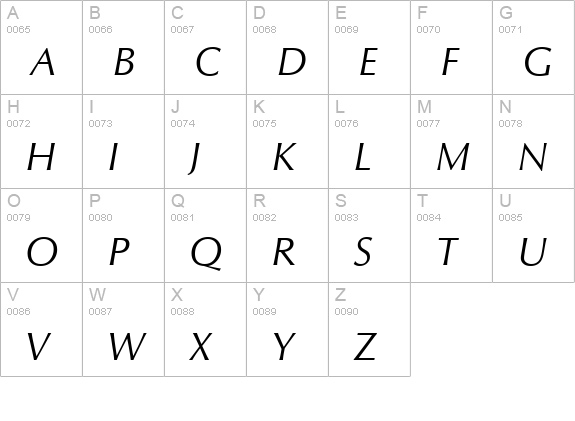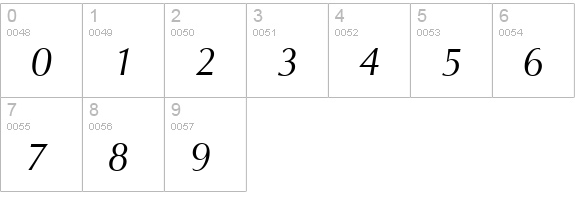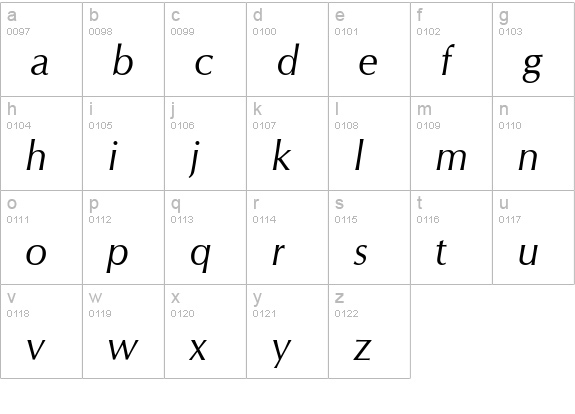
Orion Italic Font Details
Orion Italic is a distinctive, italic variant in the Orion typeface family \xE2\x80\x94 well suited to design and typography projects.
Orion Italic font exudes elegance and sophistication with its sleek and stylish design. The italicized letterforms possess a unique charm that adds a touch of modernity to any project. The flowing curves and subtle slant of the characters create a sense of movement and dynamism, making Orion Italic a perfect choice for adding a touch of flair to your designs. Best of all, Orion Italic font is available for free download at FontsMarket.com. This means that you can easily access this stunning typeface without any cost, making it a fantastic option for designers looking to elevate their projects without breaking the bank. Don't miss out on the opportunity to enhance your work with the beauty and versatility of Orion Italic font – download it today and let your creativity shine!